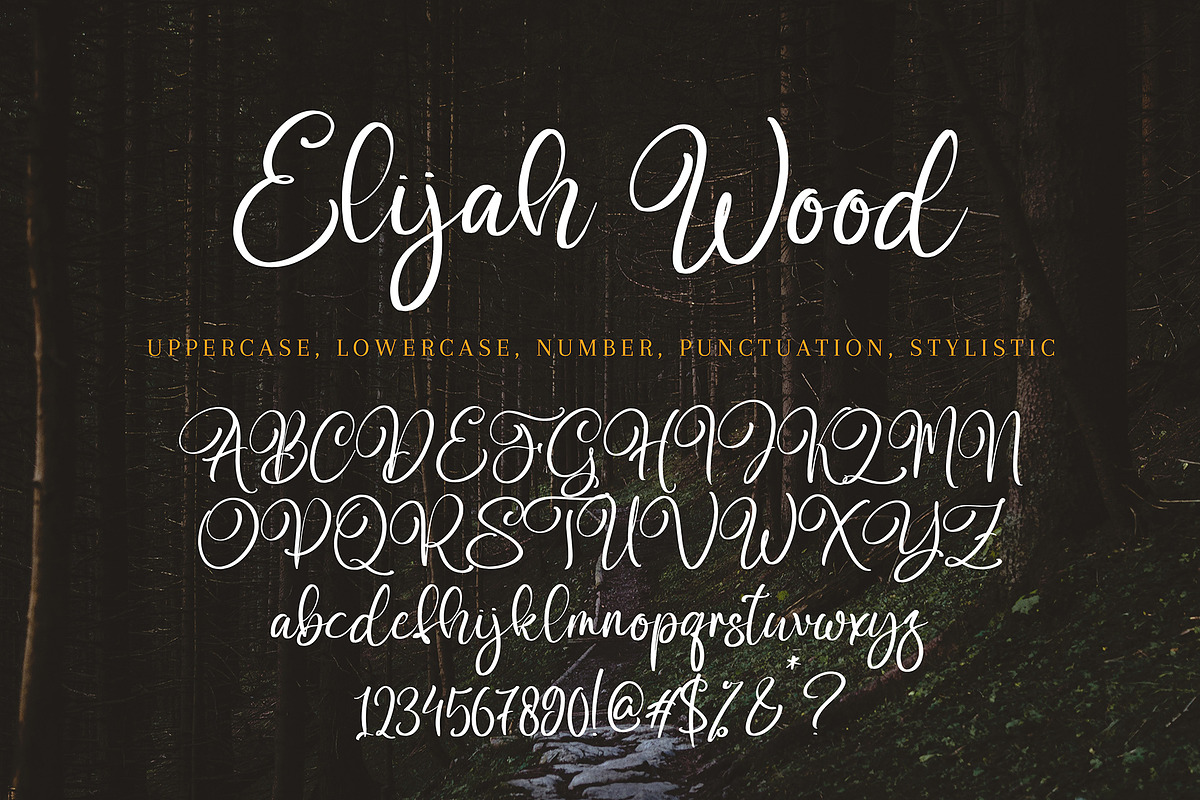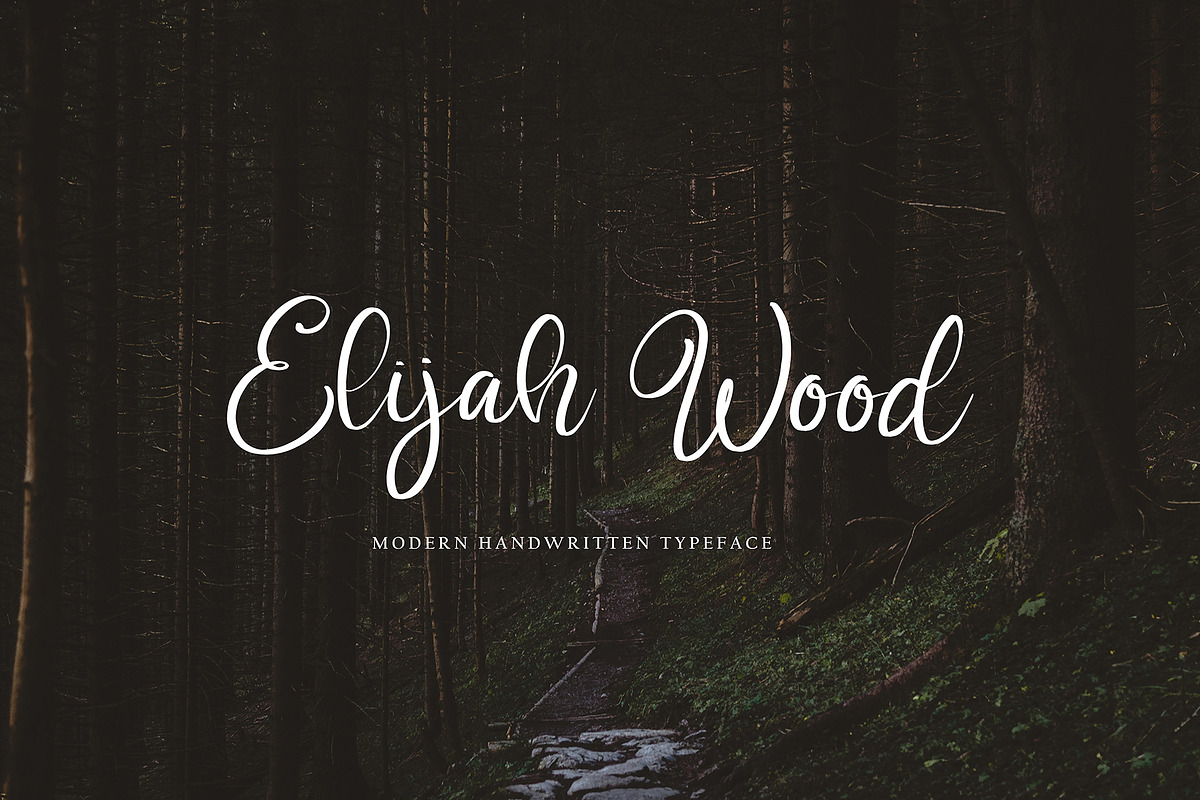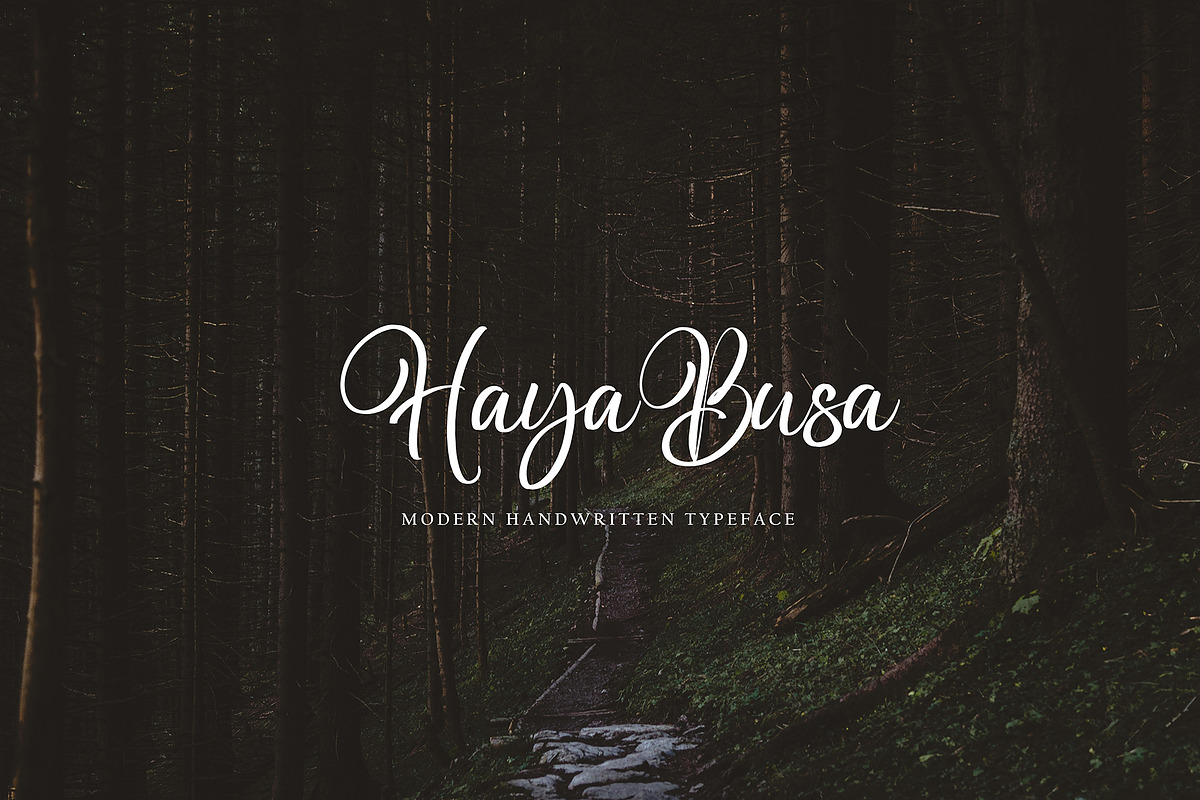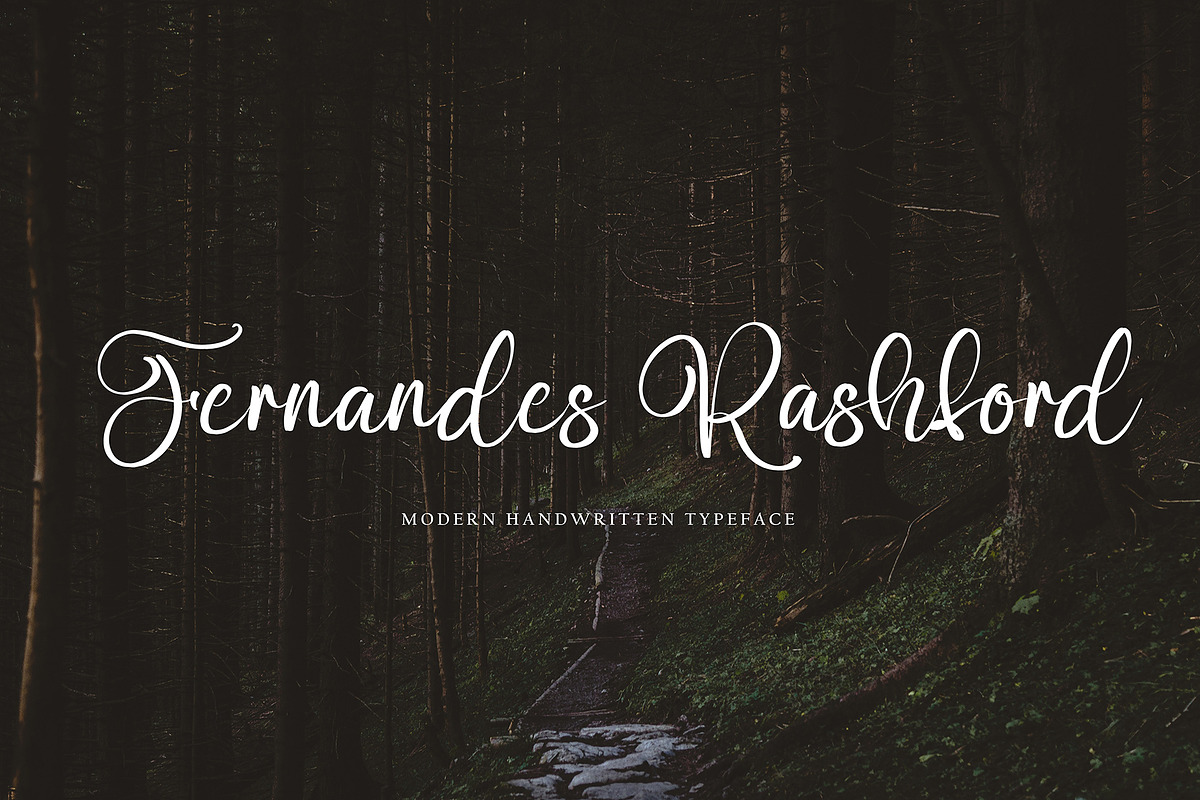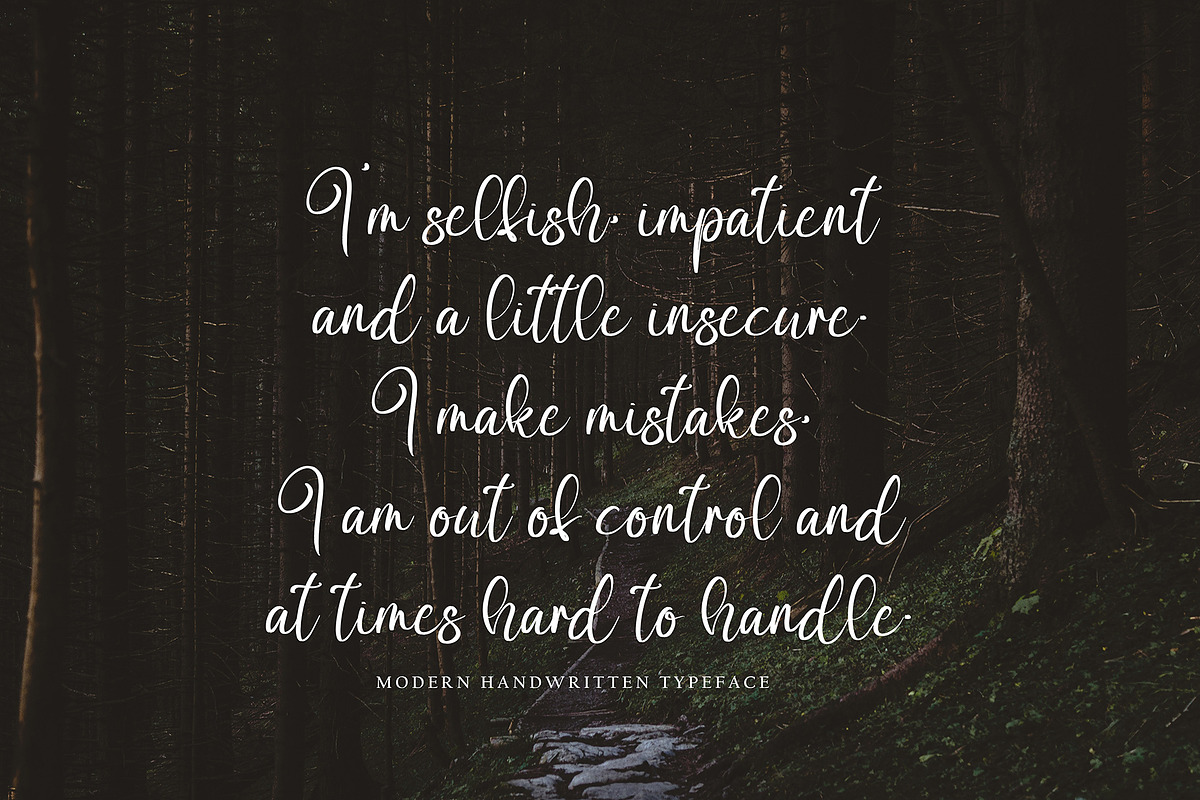
Elijah Wood
Elijah Wood with new style, this font will perfect for many different project ex: quotes, logo, blog header, poster, banding, letter, invitation, stationery, etc...